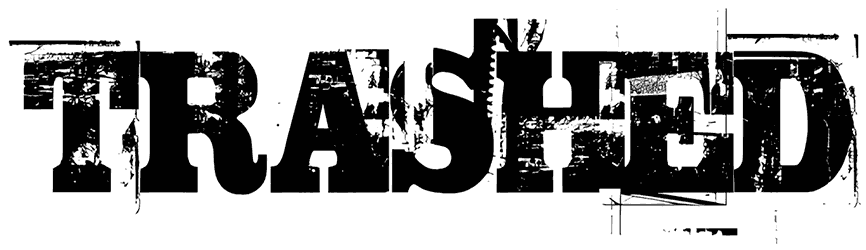
Trashed Font
By using a destroy font such as Trashed, you can share a sense of excitement, professionalism, dynamics, and innovation with your audience to add a dramatic touch to graphic projects. Since its characters are designed faded, it can be utilized to design posters, logos and prints on clothes.